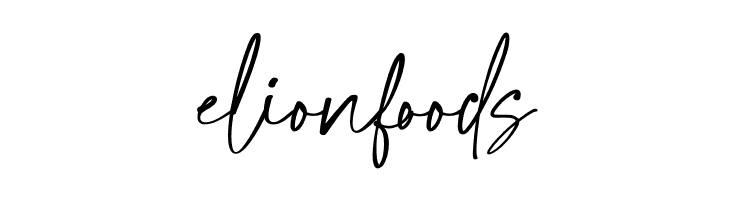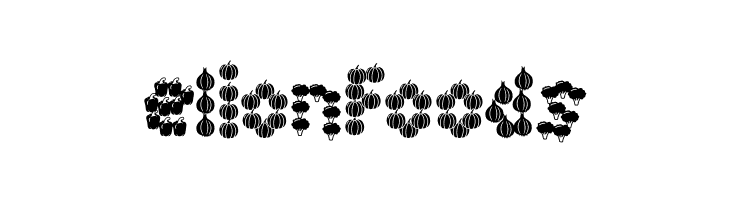
( Fonts by Denis Serikov )
A geometric, monospaced font with clean lines and uniform proportions.
( Fonts by Daymarius )
A clean, modern monospaced font with uniform character width and minimalist design.
( Fonts by Din Studio )
A modern, handwritten cursive font with elegant, flowing lines.
( Fonts by PutraCetol Studio )
A whimsical, vegetable-themed decorative font with bold, textured characters.